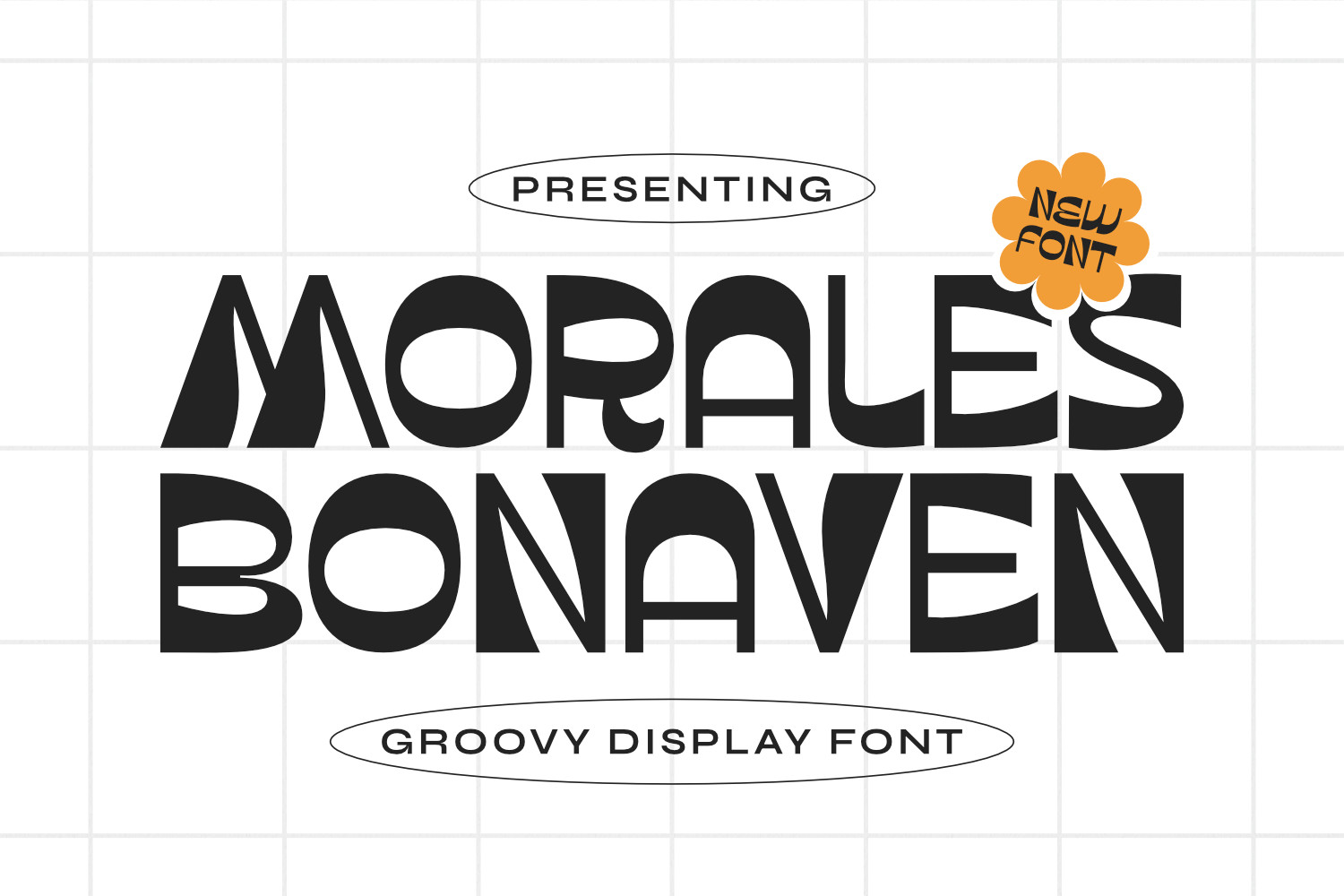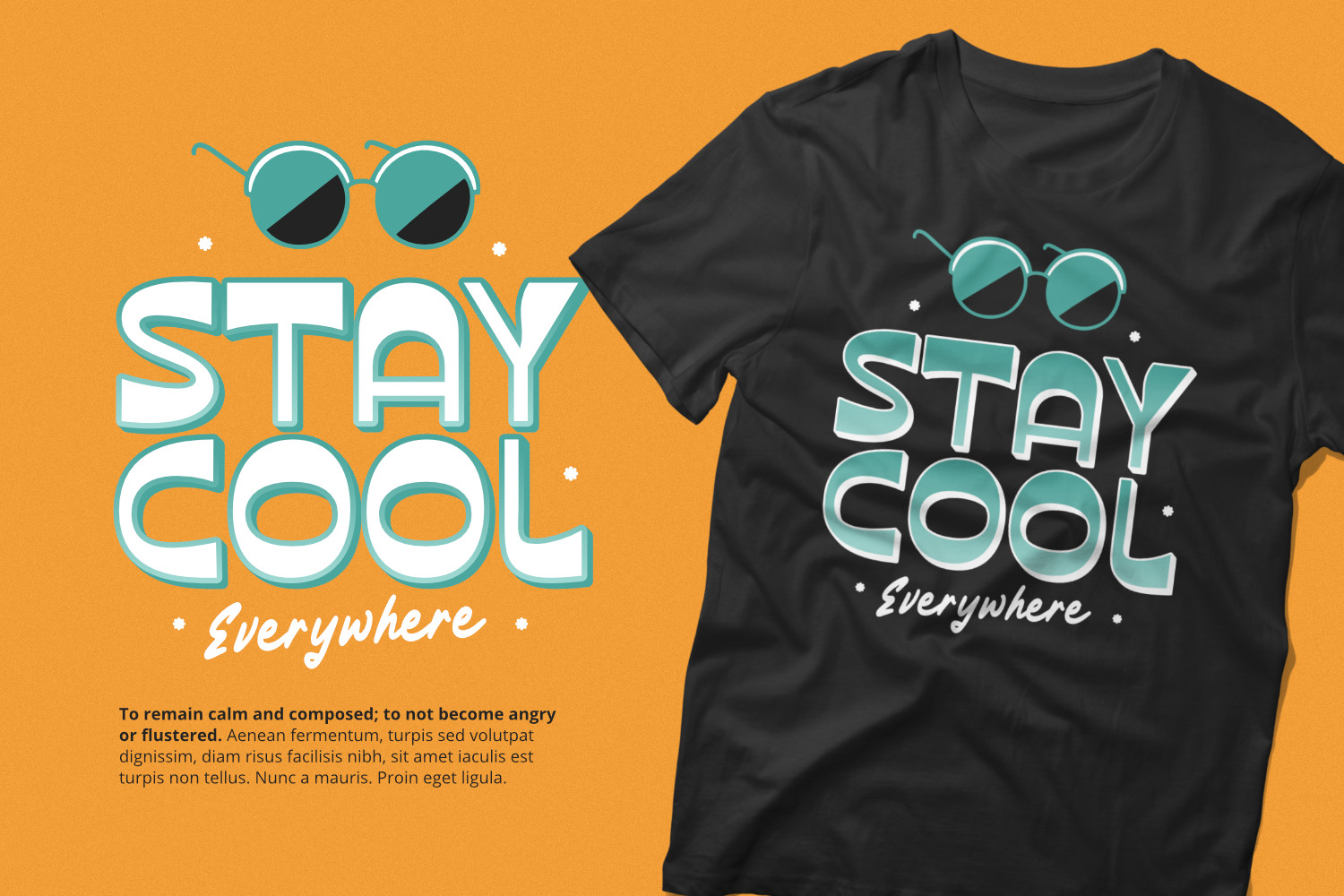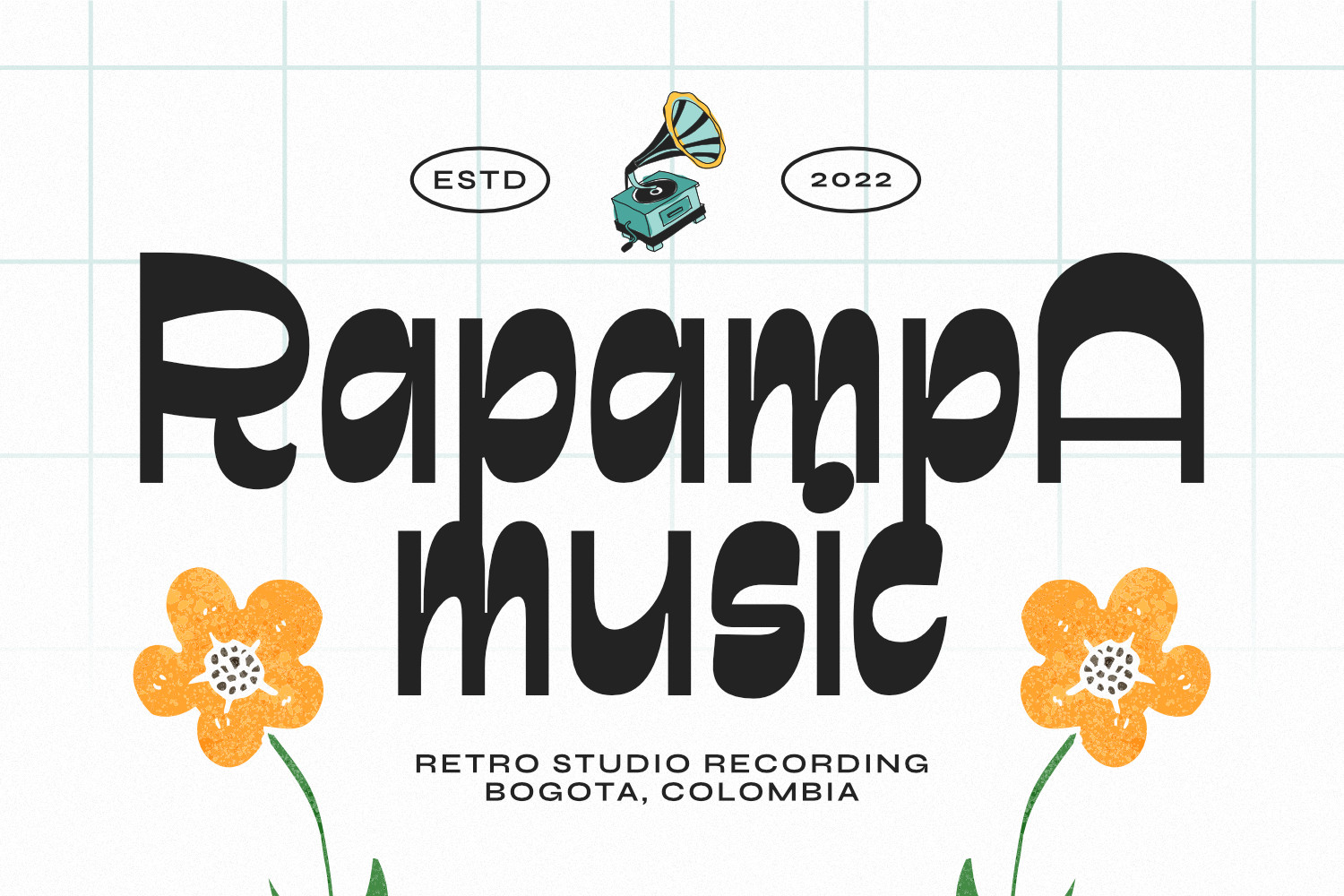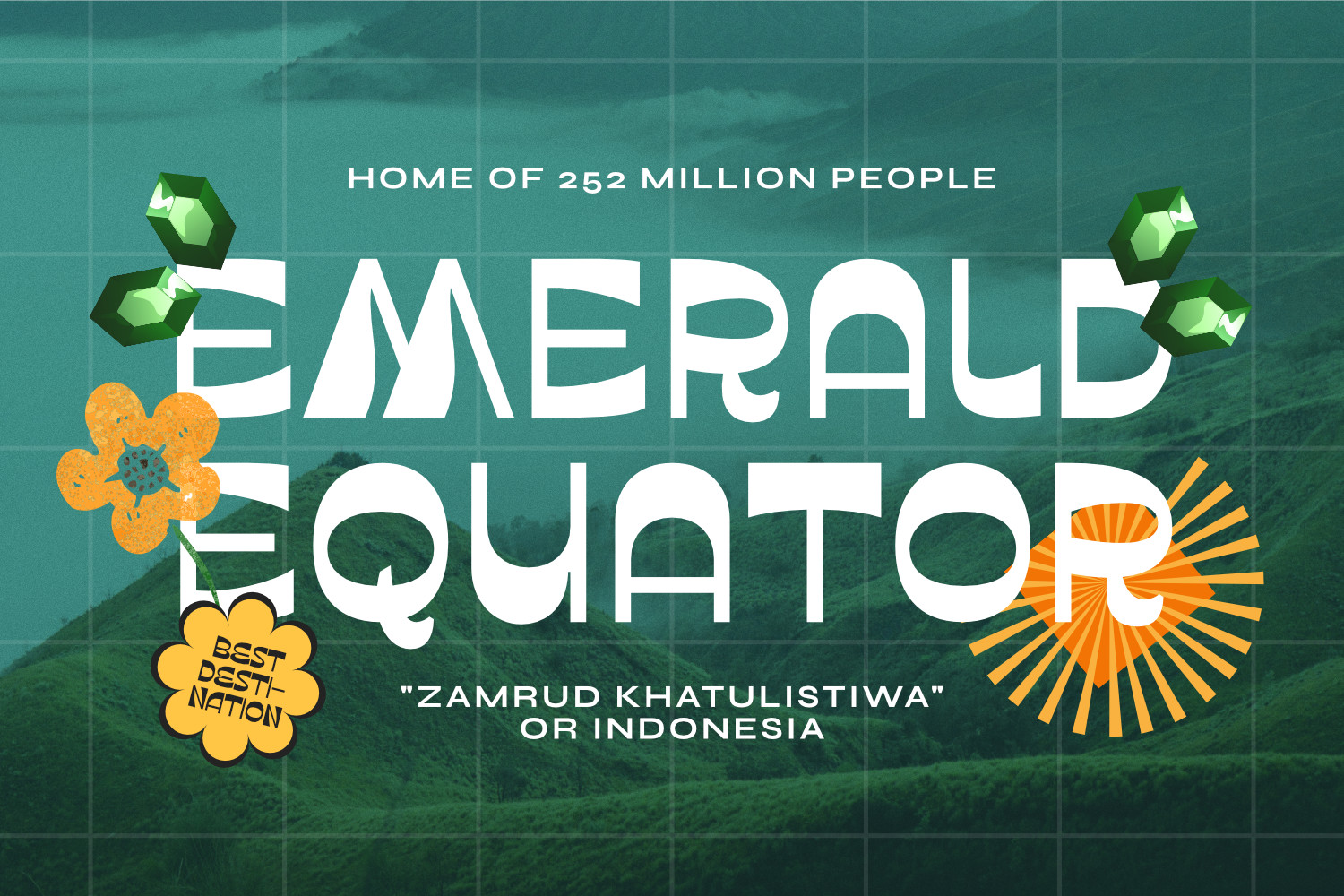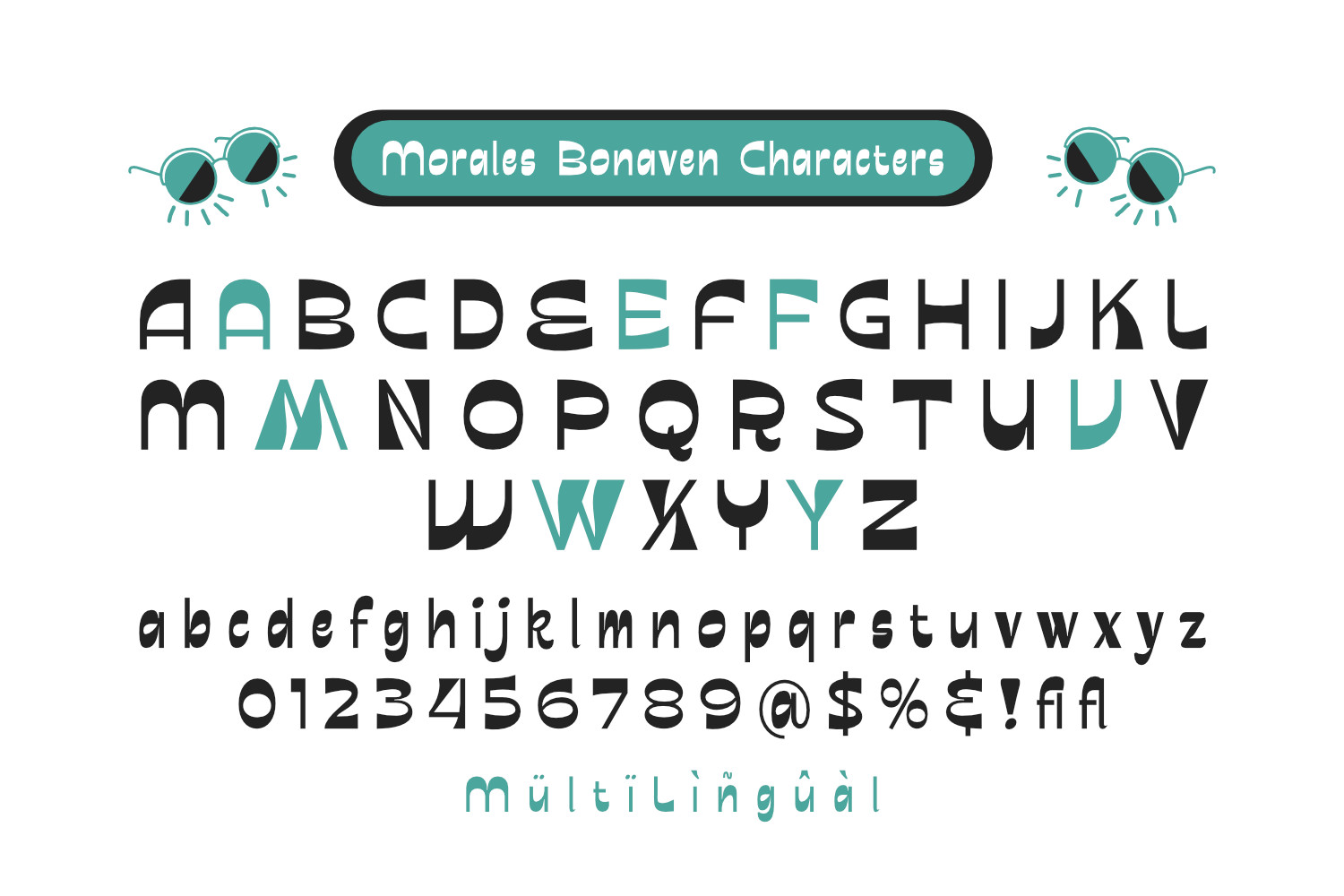
Morales Bonaven is a groovy display font bursting with retro charm and playful personality. With its bold letterforms and unique character shapes, it effortlessly channels the spirit of 70s pop culture while maintaining a modern appeal. The varying line weights and quirky curves create visual rhythm, making it ideal for bold headlines, apparel designs, and branding projects that demand a fresh, youthful vibe.
This font includes uppercase and lowercase characters, numbers, punctuation, and multilingual support. Perfectly suited for posters, music artwork, and social media graphics, Morales Bonaven brings nostalgic flair and expressive energy to any creative project. Its stylish alternates and bold aesthetics make it a fun and flexible choice for designers who love retro-futuristic style.
Morales Bonaven